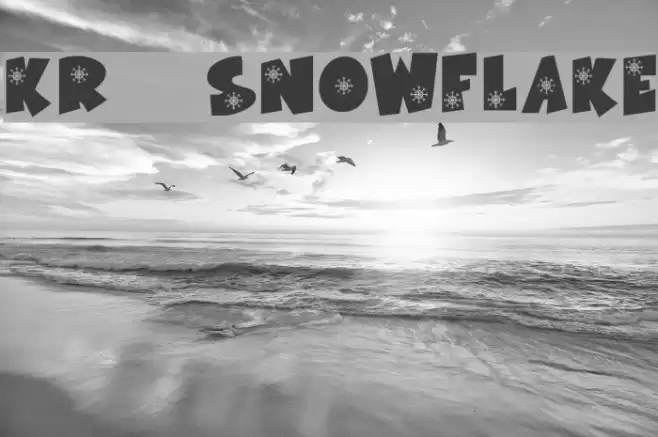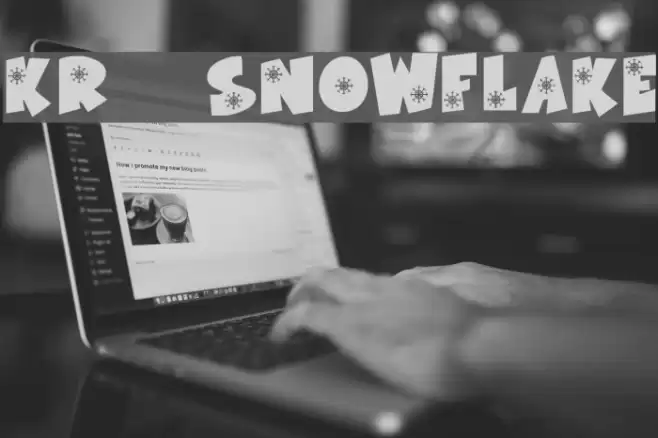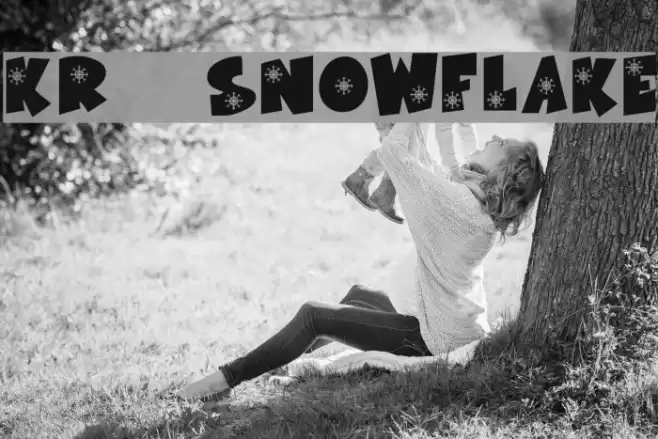
KR Snowflake Font
KR Snowflake Description
This playful and festive font features bold, uppercase letters adorned with snowflake motifs, creating a whimsical winter theme. The characters are slightly tilted, adding a dynamic and lively feel. The font's thick strokes and decorative elements make it stand out, perfect for capturing attention in seasonal designs. The snowflakes are intricately detailed, seamlessly integrated into the letters, enhancing the overall aesthetic. This font is ideal for holiday-themed projects, offering a unique and cheerful touch to any design.
A bold, festive font with snowflake-adorned uppercase letters, perfect for winter themes from Uncategorized fonts.
- Proposed Projects: Ideal for holiday cards, winter event posters, festive banners, and seasonal advertisements.